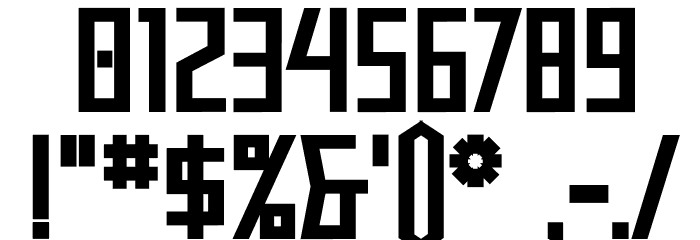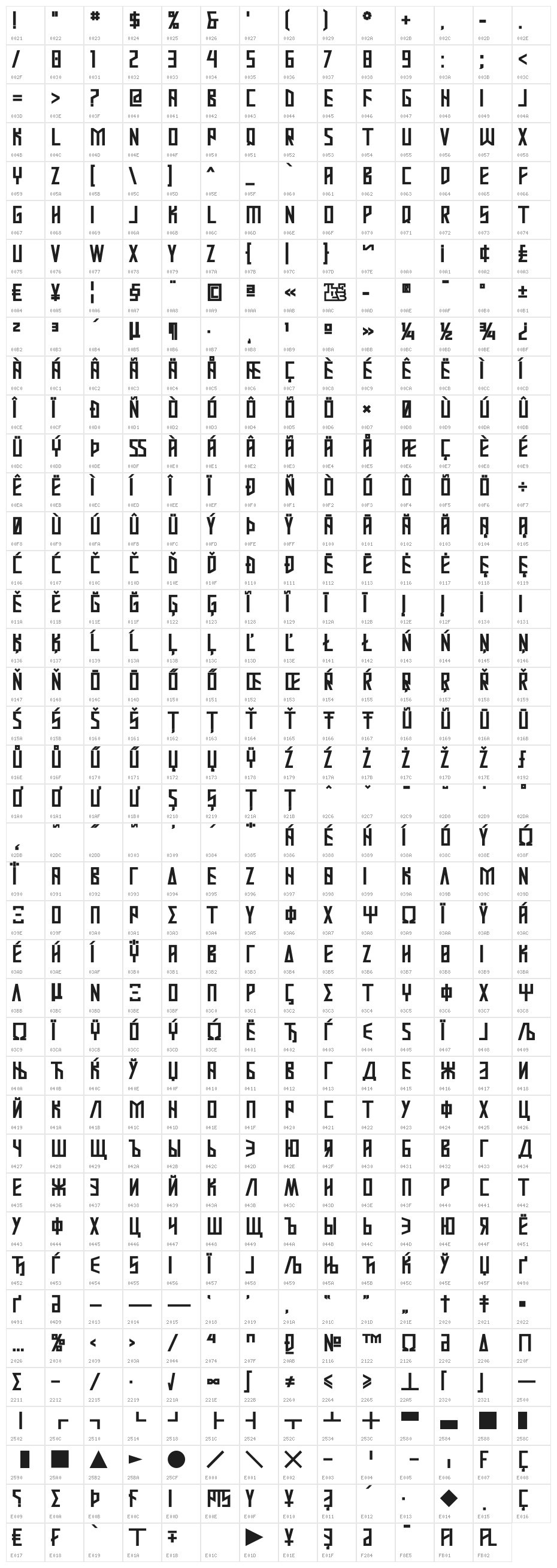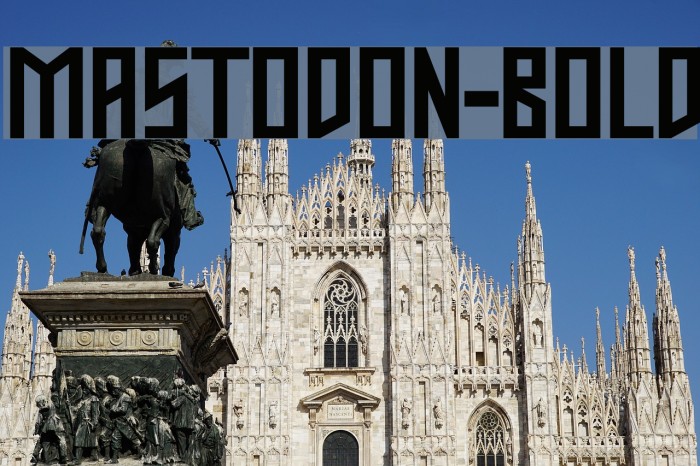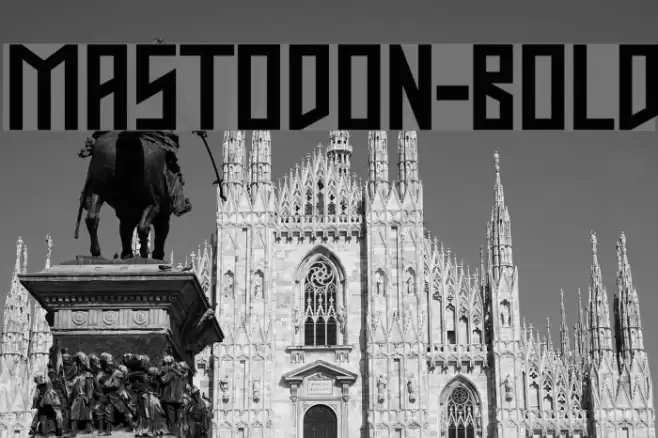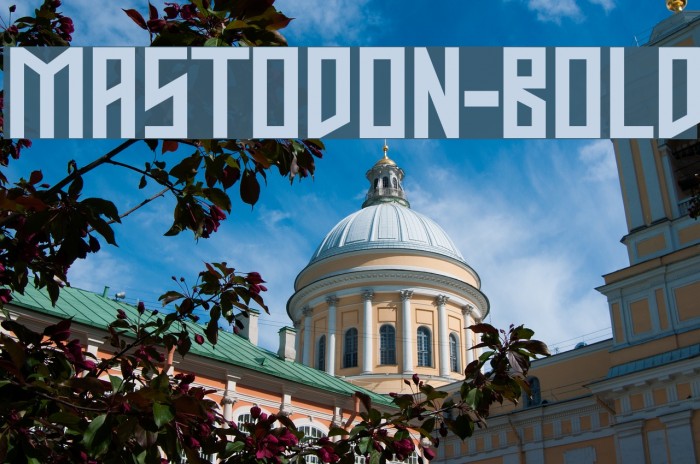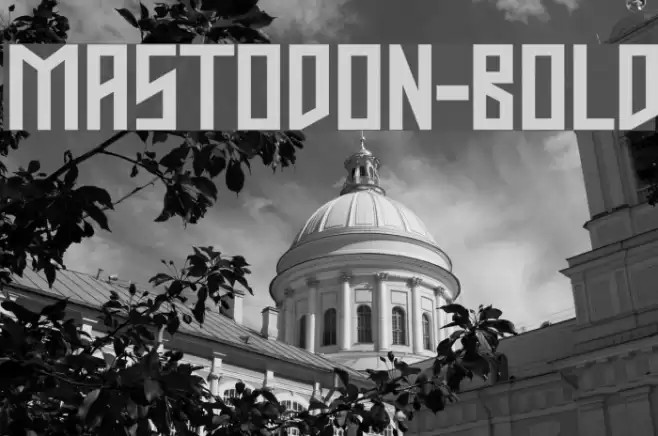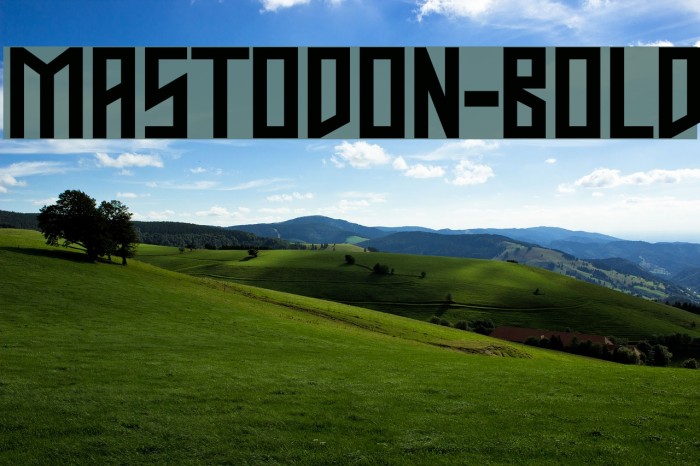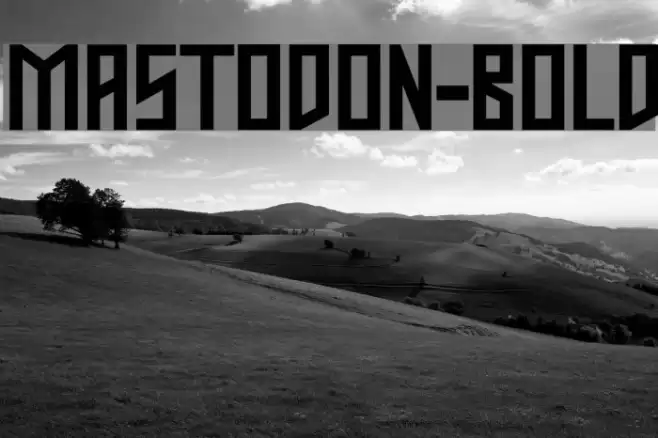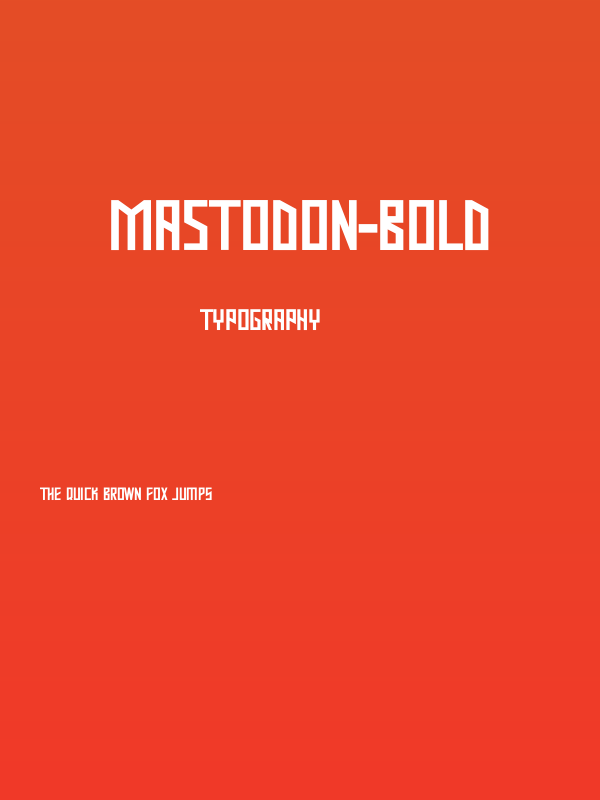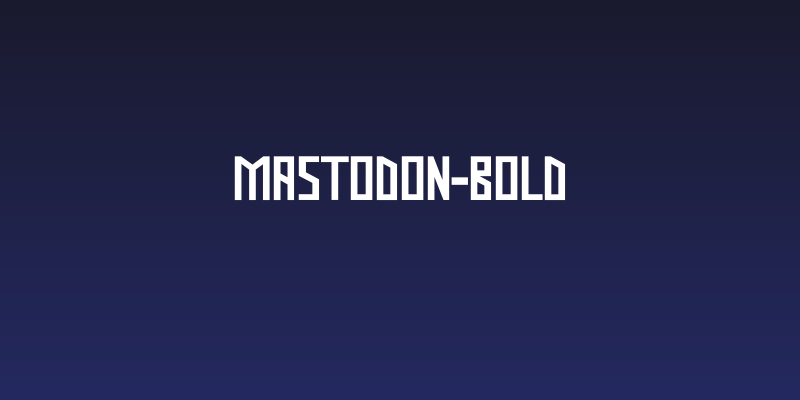
Mastodon-Bold Font
Mastodon-Bold Description
This font features a bold, geometric design with sharp angles and a strong presence. The characters are constructed with thick, uniform strokes, giving it a powerful and assertive look. The uppercase letters are particularly striking, with a consistent height and width that creates a cohesive appearance. The numbers and special characters maintain the same bold style, ensuring readability and impact. The overall design is modern and somewhat futuristic, making it suitable for projects that require a strong visual statement.
| Proposed Projects | Ideal for branding, posters, headlines, and any design requiring a strong, impactful font. |